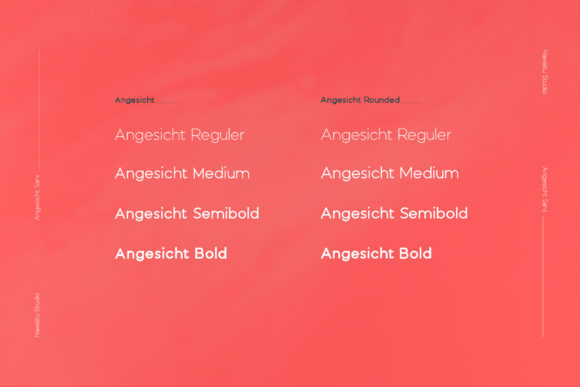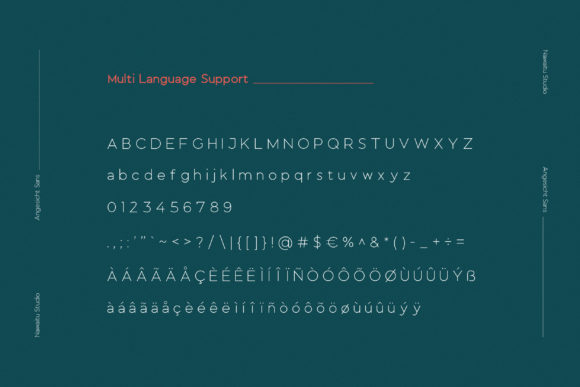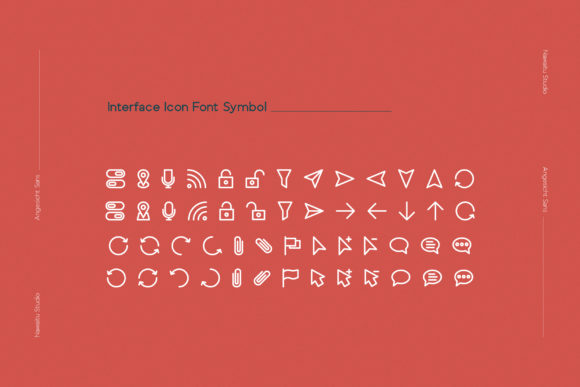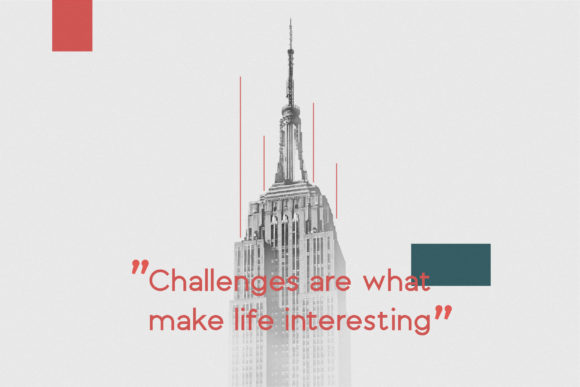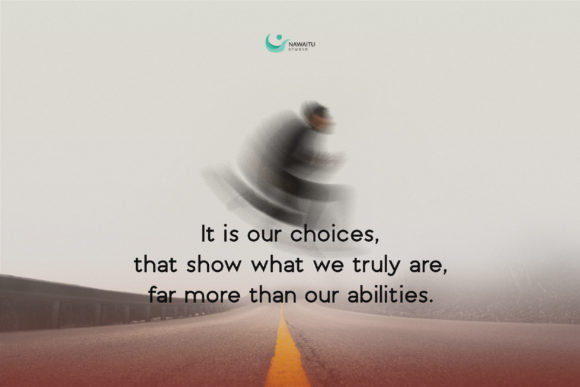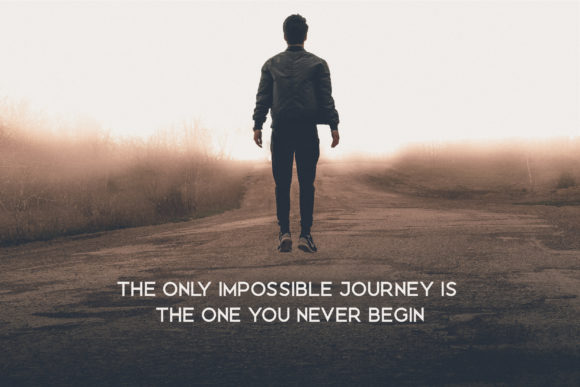
Introducing Angesicht Font: A Modern and Versatile Typeface for Designers
In the world of typography, a good font can make all the difference in a design project. For designers and crafters looking for a modern and strong typeface, Angesicht Font is an excellent choice. This versatile font family comes in 9 carefully designed versions, making it suitable for a wide range of design applications.
What is Angesicht Font?
Angesicht Font is a contemporary typeface designed to convey a sense of strength and modernity. The name “Angesicht” is German for “face,” which reflects the font’s focus on clean lines, geometric shapes, and a bold aesthetic. With its sleek and sophisticated design, Angesicht Font is perfect for designers who want to add a touch of modernity to their projects.
Key Features of Angesicht Font
- 9 Carefully Designed Versions: Angesicht Font comes in 9 different versions, each with its own unique characteristics. This range of styles allows designers to choose the perfect variation for their project, whether it’s for a headline, body text, or display text.
- Versatility: Angesicht Font is designed to be versatile, making it suitable for a wide range of design applications, from branding and advertising to packaging and digital design.
- Modern and Strong: Angesicht Font has a bold and modern aesthetic that is sure to grab attention. Its clean lines and geometric shapes give it a sleek and sophisticated look that’s perfect for designers who want to create a lasting impression.
Design Applications for Angesicht Font
Angesicht Font is a versatile typeface that can be used in a variety of design applications, including:
- Branding and Advertising: Angesicht Font is perfect for creating bold and eye-catching logos, advertisements, and marketing materials.
- Digital Design: Angesicht Font can be used in digital design projects, such as website design, mobile app design, and social media graphics.
- Packaging Design: Angesicht Font is suitable for packaging design, including labels, product packaging, and point-of-purchase displays.
- Print Design: Angesicht Font can be used in print design projects, such as brochures, flyers, and posters.
Why Choose Angesicht Font?
There are many reasons why designers and crafters should choose Angesicht Font for their projects. Here are a few:
- Unique and Modern Design: Angesicht Font has a unique and modern design that is sure to grab attention.
- Versatility: Angesicht Font comes in 9 different versions, making it suitable for a wide range of design applications.
- Easy to Read: Angesicht Font is designed to be easy to read, making it perfect for body text and other applications where readability is important.
In conclusion, Angesicht Font is a modern and versatile typeface that is perfect for designers and crafters looking for a strong and sophisticated font. With its 9 carefully designed versions and wide range of design applications, Angesicht Font is an excellent choice for any design project. Whether you’re creating a logo, website, or packaging design, Angesicht Font is sure to make a lasting impression.